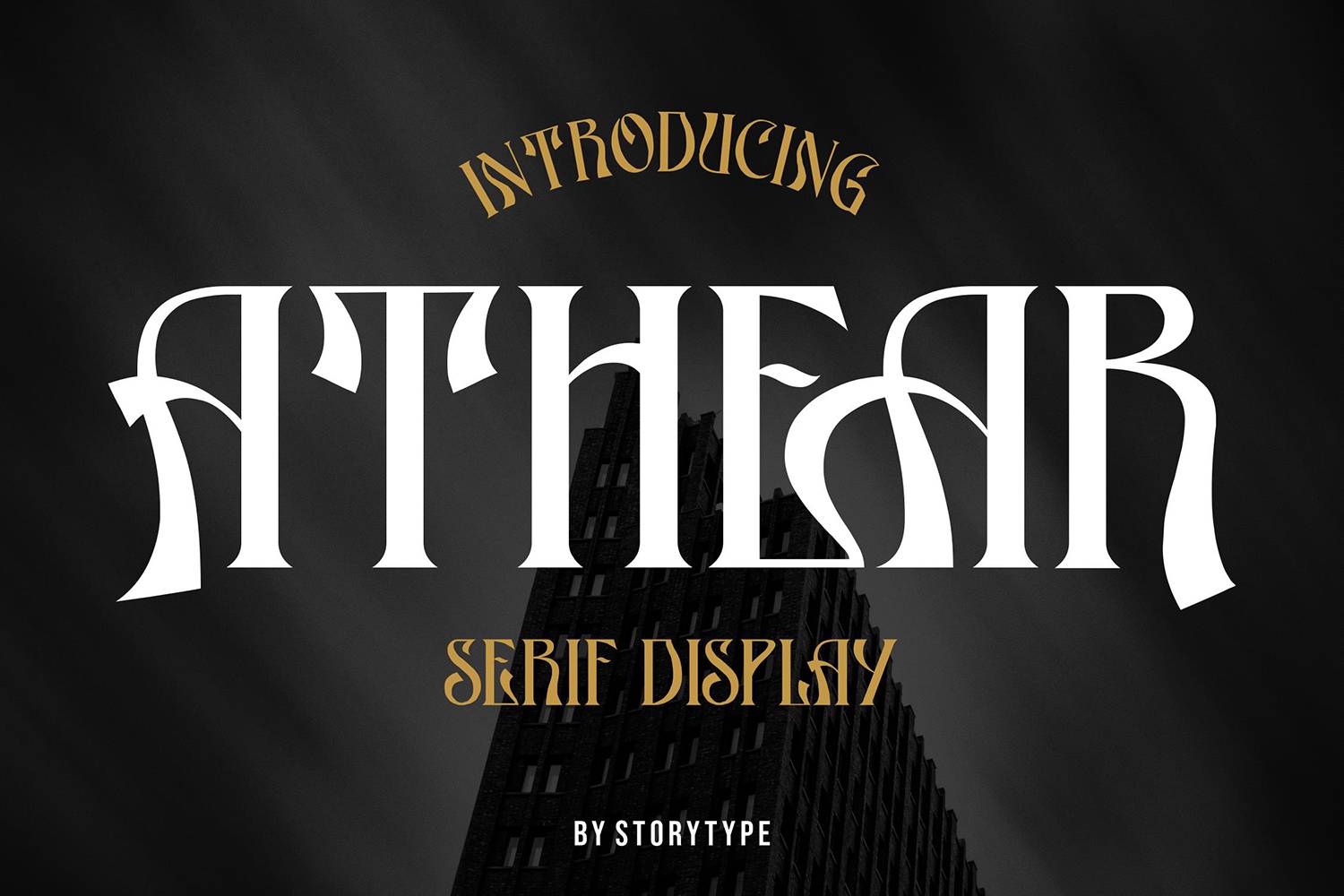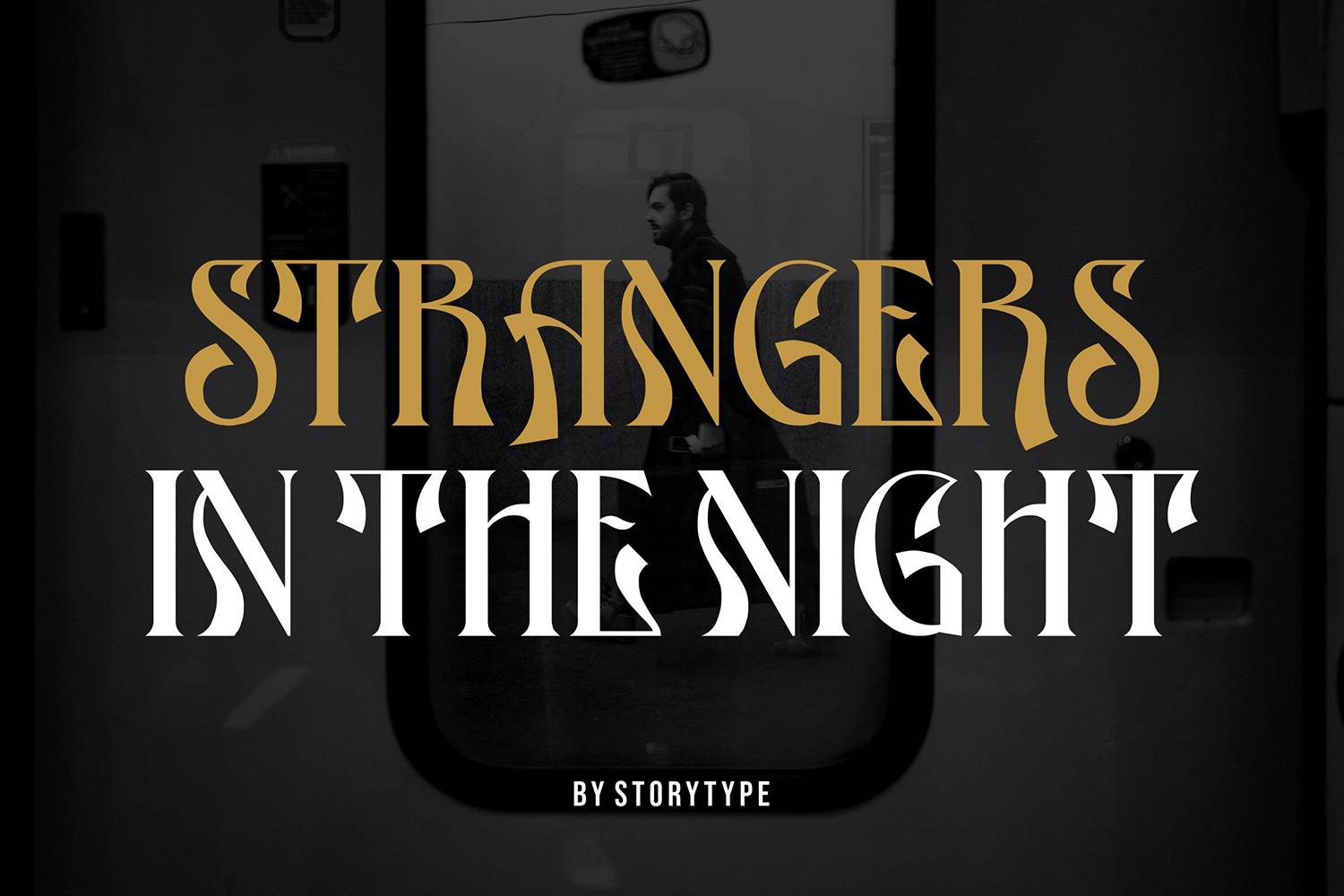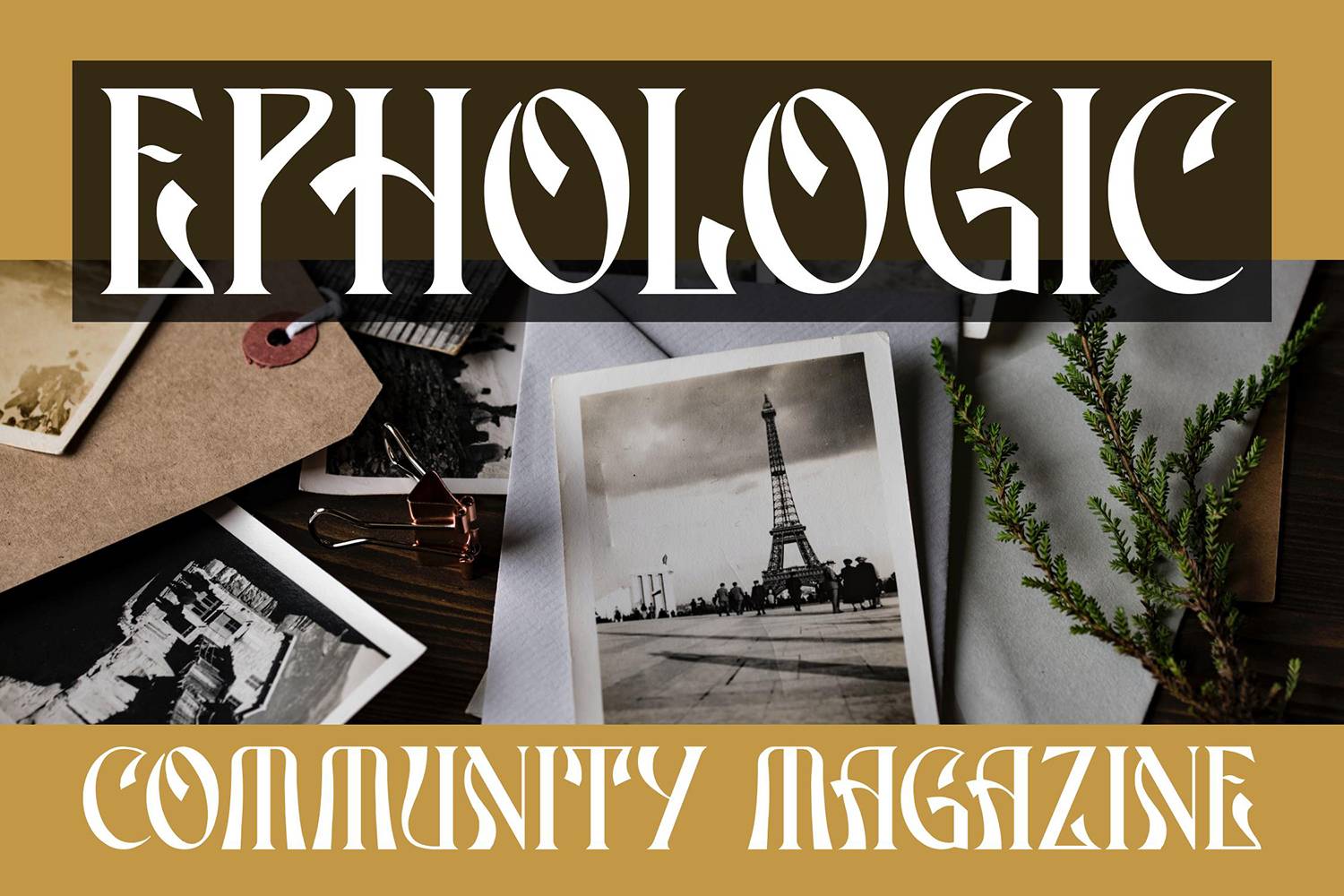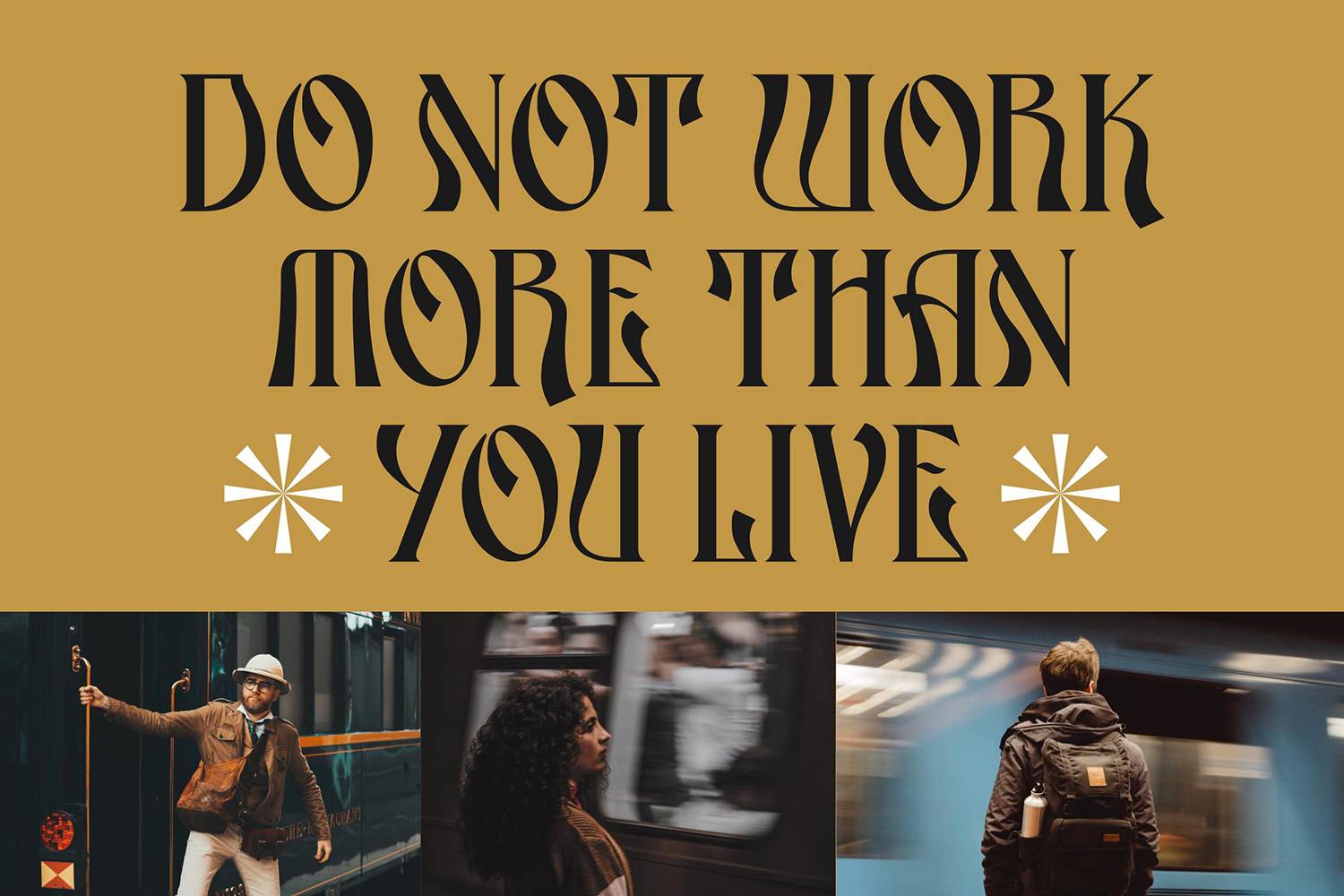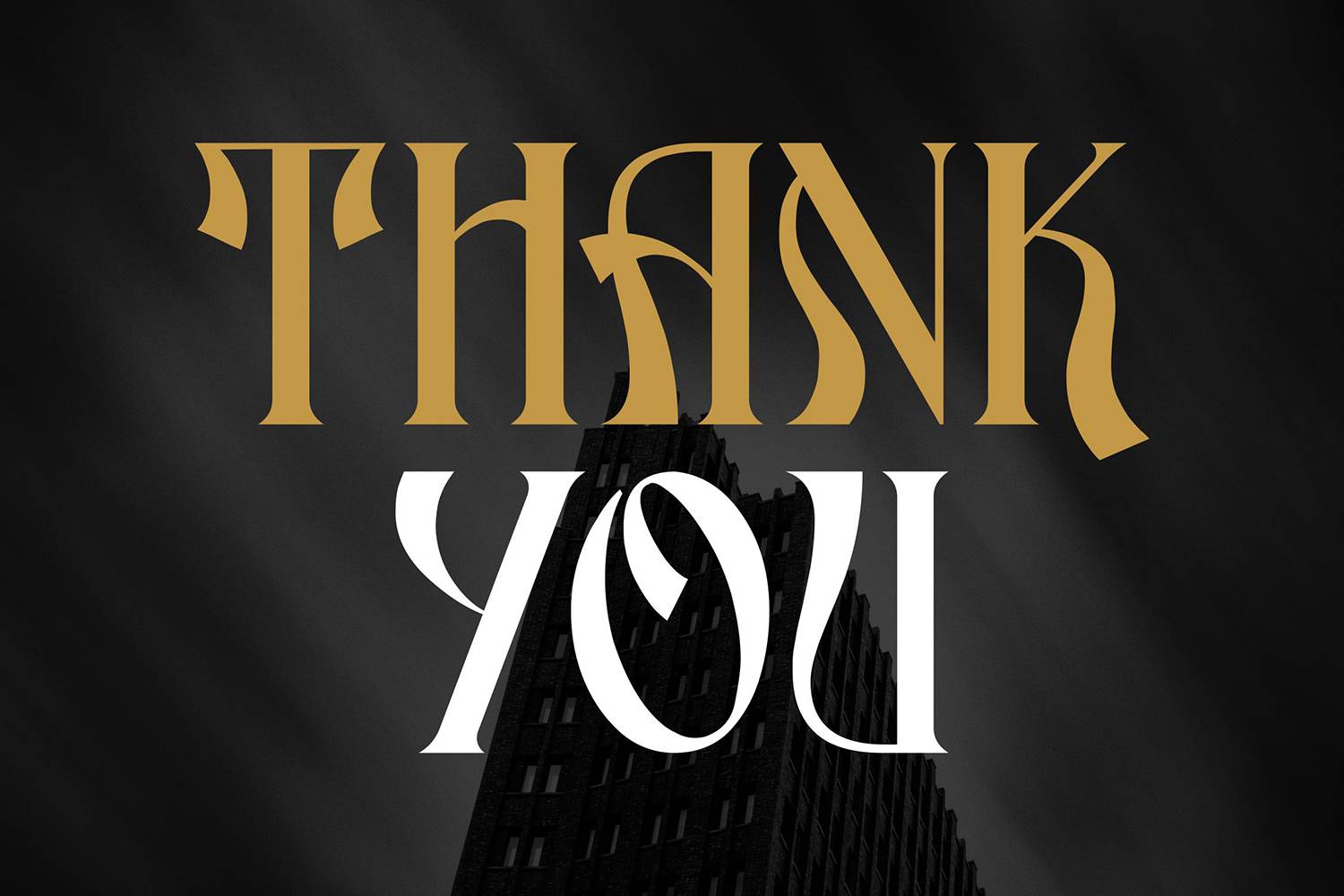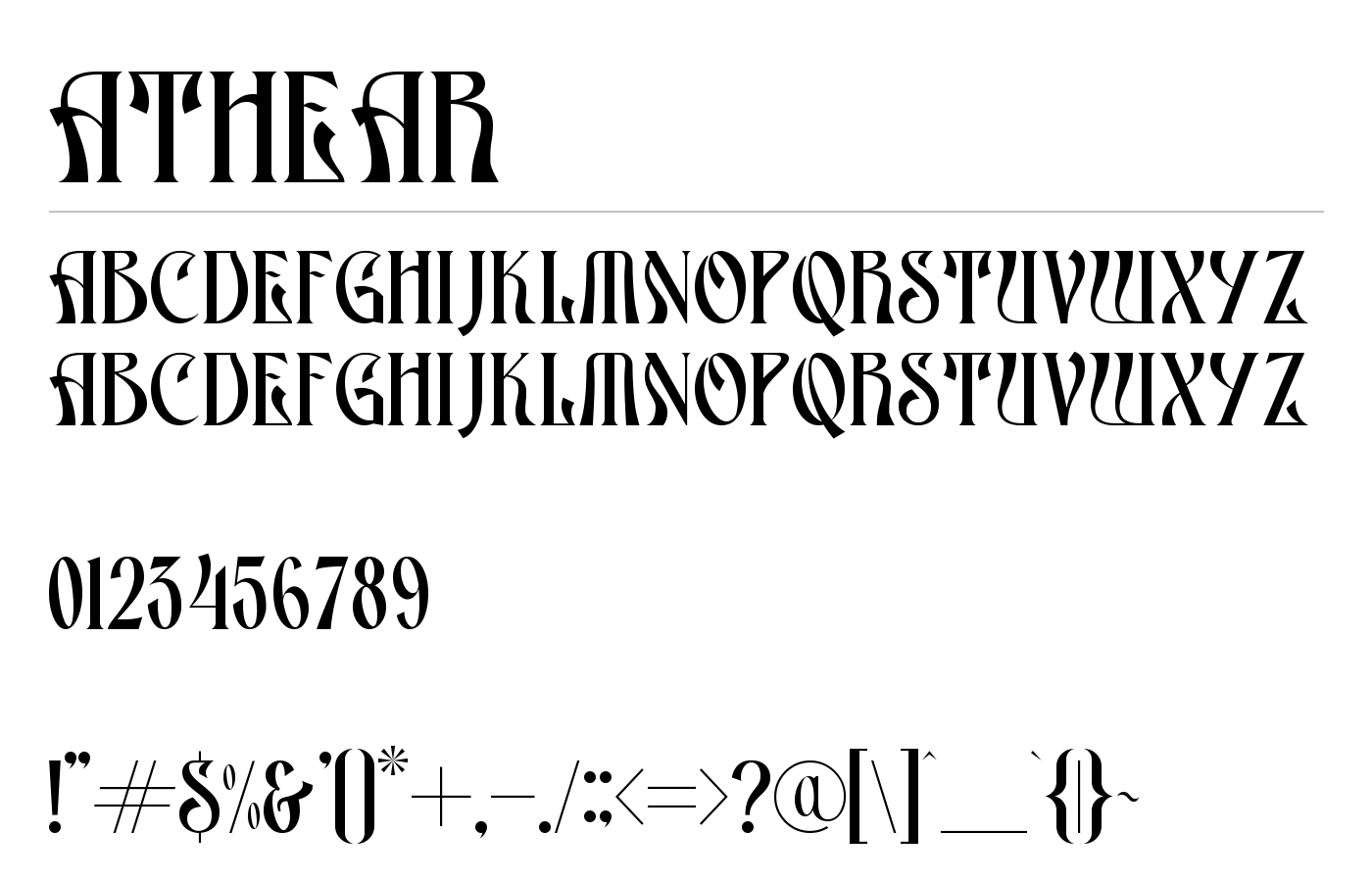
Athear is a striking serif font with a dramatic, modern flair, featuring high contrast between thick and thin strokes and uniquely stylized letterforms that blend elegance with an artistic, almost gothic vibe. Its tall, narrow proportions and sharp, angular details give it a bold, sophisticated personality ideal for standout headlines, luxury branding, and creative editorial design. This font works best where a distinctive, refined impression is needed to capture attention and convey prestige.
Athear Font
About Athear Font